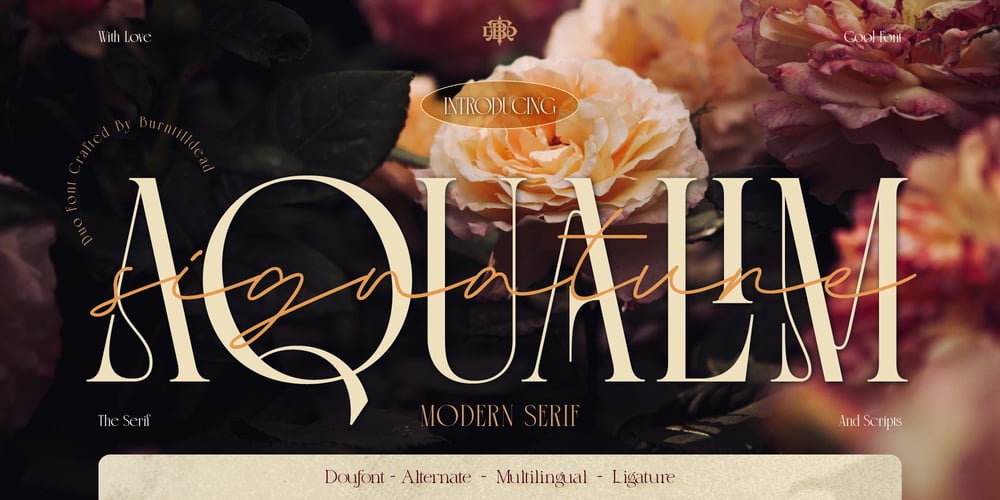
Aqualim Font Family was designed by Eric Kurniawan and published by Burntilldead. Aqualim contains 2 styles and family package options. Aqualim Signature, when classic of serif meets the elegance of script. This duo font bring the aesthetic of classy and luxury look so its perfectly suit for headline, logo, covers, posters, quotes, magazine, wedding, product packaging, merchandise, social media, marketing materials and many more!Features: Aqualim Signature A-Z set (uppercase & lowercase) Numerals Punctuation Alternate Ligature